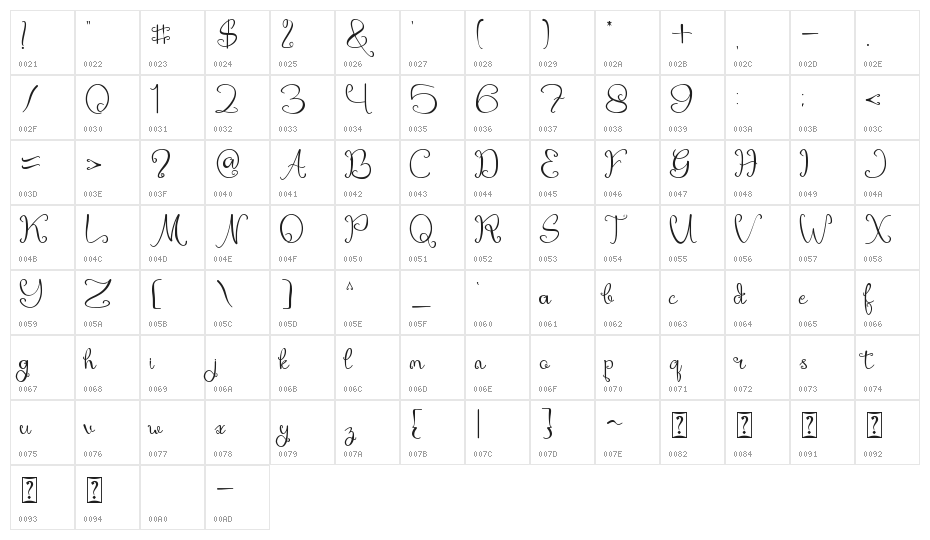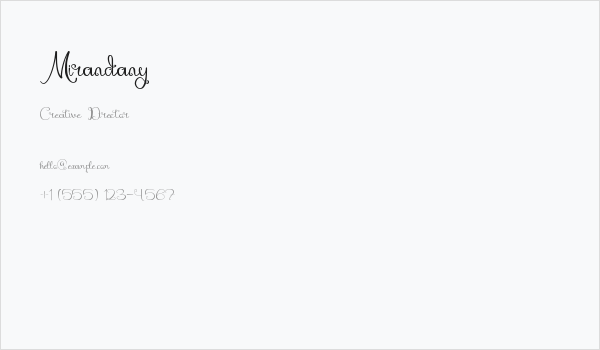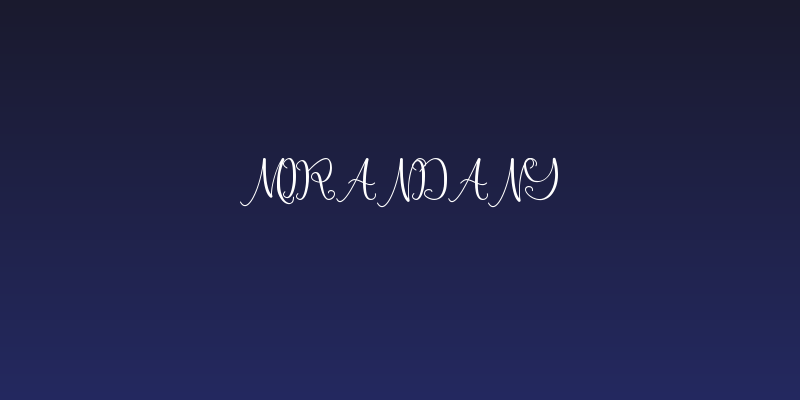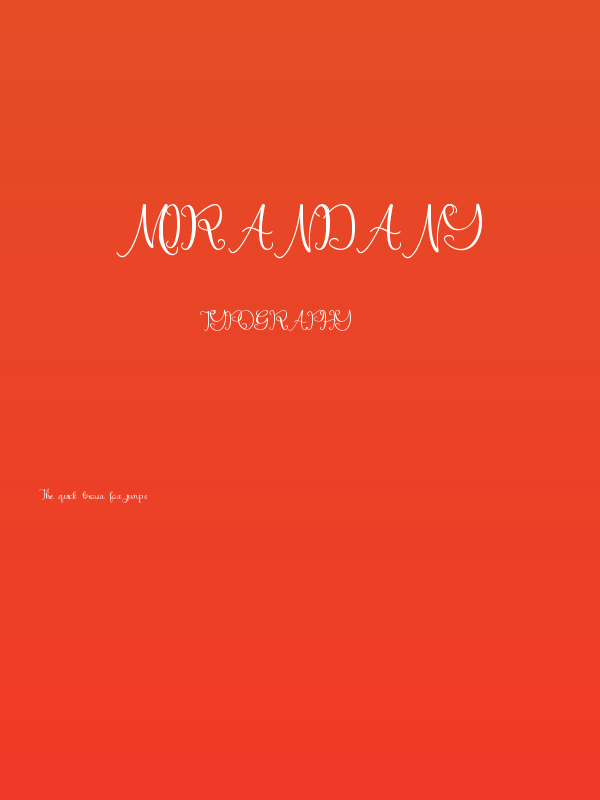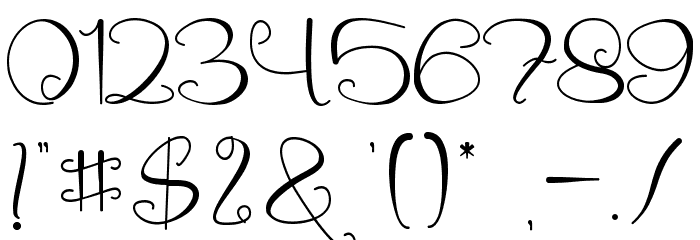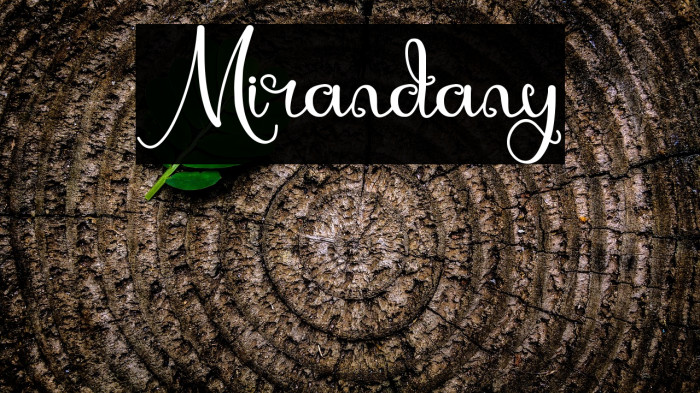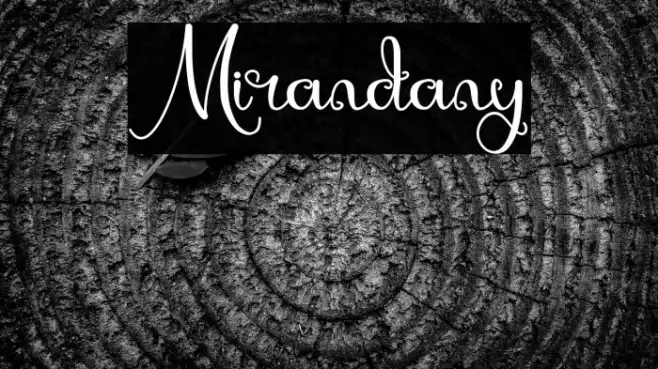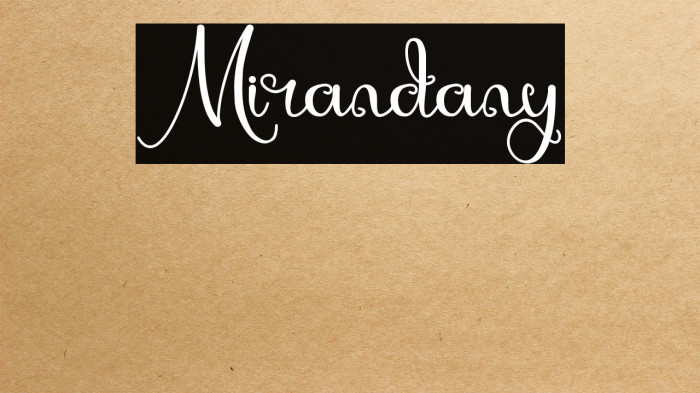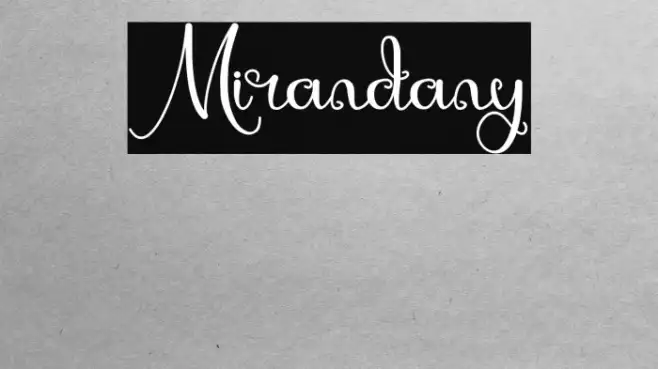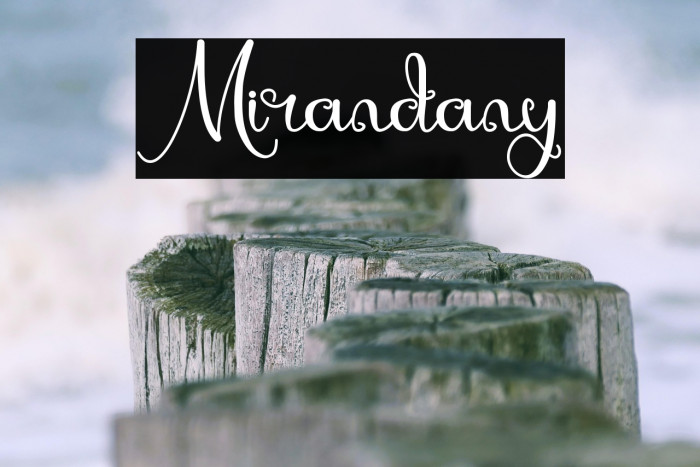
Mirandany Font
Mirandany Description
This font features an elegant and flowing script style, characterized by its intricate loops and swirls. The uppercase letters are particularly ornate, with flourishes that extend beyond the baseline and cap height, giving it a whimsical and artistic appearance. The lowercase letters maintain a consistent style, with smooth curves and a slightly condensed form. Numbers and special characters are designed to match the overall aesthetic, ensuring a cohesive look across all text. This font is ideal for projects that require a touch of sophistication and creativity.
| Proposed Projects | Ideal for wedding invitations, greeting cards, branding, and decorative headlines. |